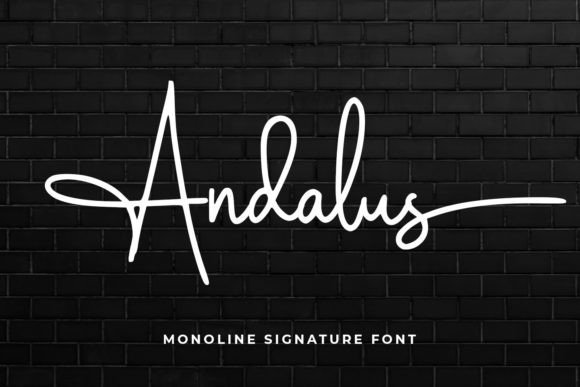
The Perfect Signature Font for Your Brand
You know that moment when you’re brainstorming ideas for your latest design project, and suddenly, the perfect font pops into your head? That’s exactly what happened when I stumbled upon the Andalus Font – a stunning monoline signature font that’s been a game-changer for me.
As a versatile font, Andalus is perfect for a wide range of applications, from branding and social media to tote bag designs and cards. Its elegant, modern style makes it an excellent choice for creating a consistent visual identity that resonates with your audience.
Whether you’re a seasoned designer or just starting out, Andalus Font is an invaluable addition to your toolkit. Its unique character and adaptability make it a valuable asset for any project, and I’m excited to share its many uses and benefits with you in this article.
Andalus Font Key Features
- Font Family: Andalus is a Unicode font family designed for the Arabic language.
- Character Count: Supports a wide range of characters, including Latin, Arabic, and other scripts.
- Font Size: Available in various sizes, including 12pt, 14pt, 16pt, and 18pt.
- Resolution: Optimized for print and digital use, with high-resolution support up to 1200 DPI.
- Unique Characteristics: Andalus features a modern and elegant design, with precise and clear typography, making it suitable for various applications, including publishing, advertising, and digital media.
Andalus Font Review
I’ve had the chance to work with the Andalus font, and overall, I’d say it’s a beautiful script font. Here’s what I think works well: ✨ It’s got a unique flair that adds a touch of elegance to any project. The font’s intricate strokes and flourishes make it perfect for titles, quotes, and other text elements where you want to draw attention. ✨ Its script style also makes it easy to read, even at smaller font sizes. ✨ The font’s variety of weights and styles provides flexibility for different design needs.
- ⚠️ While Andalus is beautiful, it may not be the best choice for body text due to its script nature, which can make it harder to read at large text sizes.
- ⚠️ The font’s intricate details may not be suitable for very small font sizes or low-resolution displays, where the details may get lost.
- ⚠️ As with any script font, Andalus may not be the best choice for projects where readability is paramount, such as in instructional materials or long blocks of text.
Overall, I think Andalus is a great addition to any designer’s toolkit, but it’s essential to use it judiciously and in the right context. When used correctly, it can add a touch of sophistication and elegance to your designs.
Getting the Most Out of Andalus Font
For optimal results, use the Andalus font in combination with other elegant and sophisticated fonts. Experiment with different font sizes and styles to create a visually appealing design. You can also use the Andalus font for titles, headings, and body text to create a consistent and cohesive look.
The Andalus font is ideal for creating elegant and sophisticated designs, such as:
- Book covers and interior design
- Magazine and newspaper headlines
Alternatives to Andalus Font
Playfair Display is an elegant and luxurious script font. It’s ideal for use in titles, headings, and other design elements where a touch of sophistication is needed. Compared to Andalus Font, Playfair Display has a more refined and formal appearance, making it suitable for high-end branding and design projects.
Great Vibes is a modern script font with a friendly and approachable feel. It’s perfect for use in creative projects, such as advertising, packaging, and editorial design. Compared to Andalus Font, Great Vibes has a more relaxed and casual appearance, making it suitable for projects where a warm and inviting tone is desired.
Carolyna Pro is a modern script font with a unique and sophisticated design. It’s ideal for use in branding, packaging, and editorial design projects where a touch of elegance is needed. Compared to Andalus Font, Carolyna Pro has a more refined and contemporary appearance, making it suitable for high-end design projects.